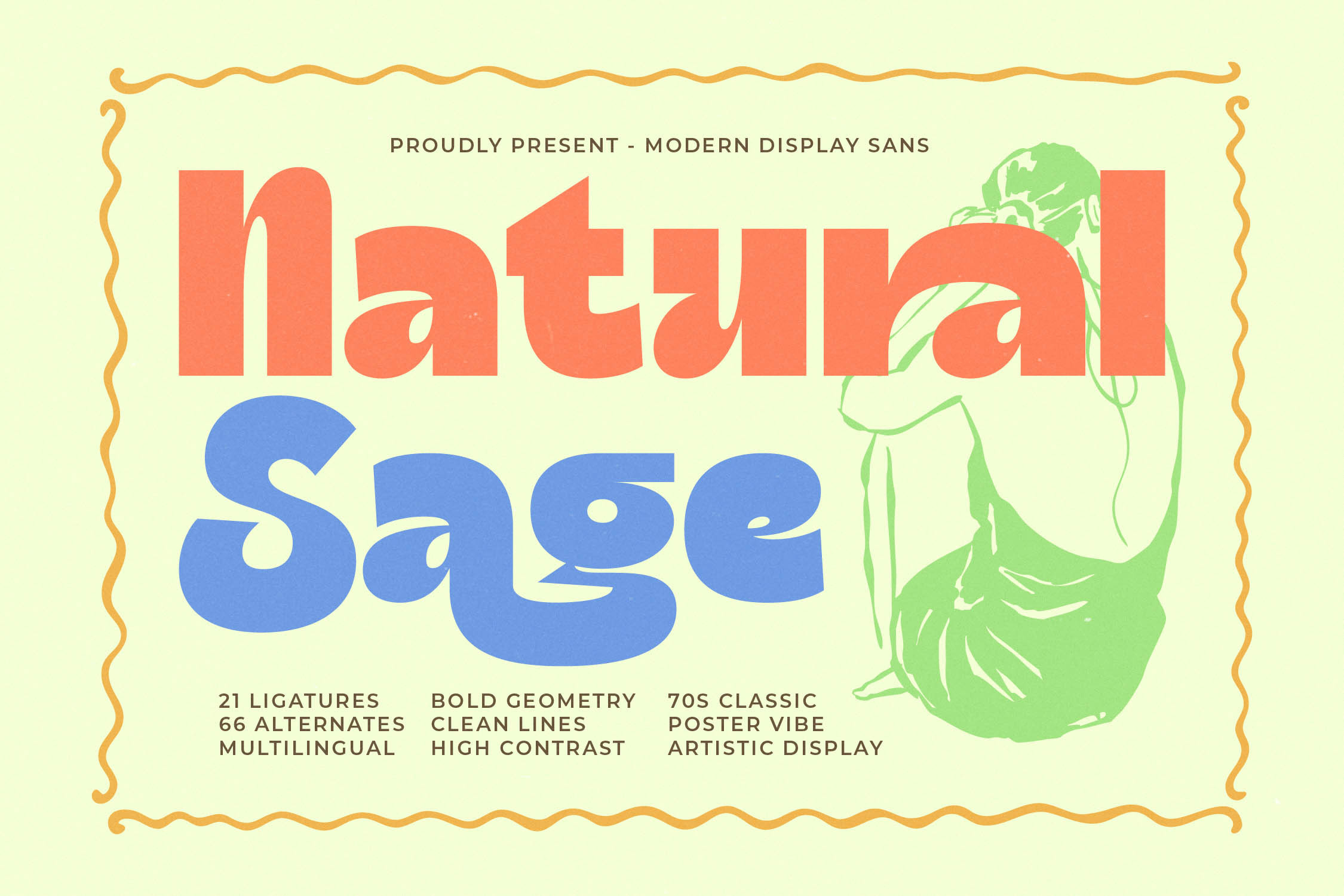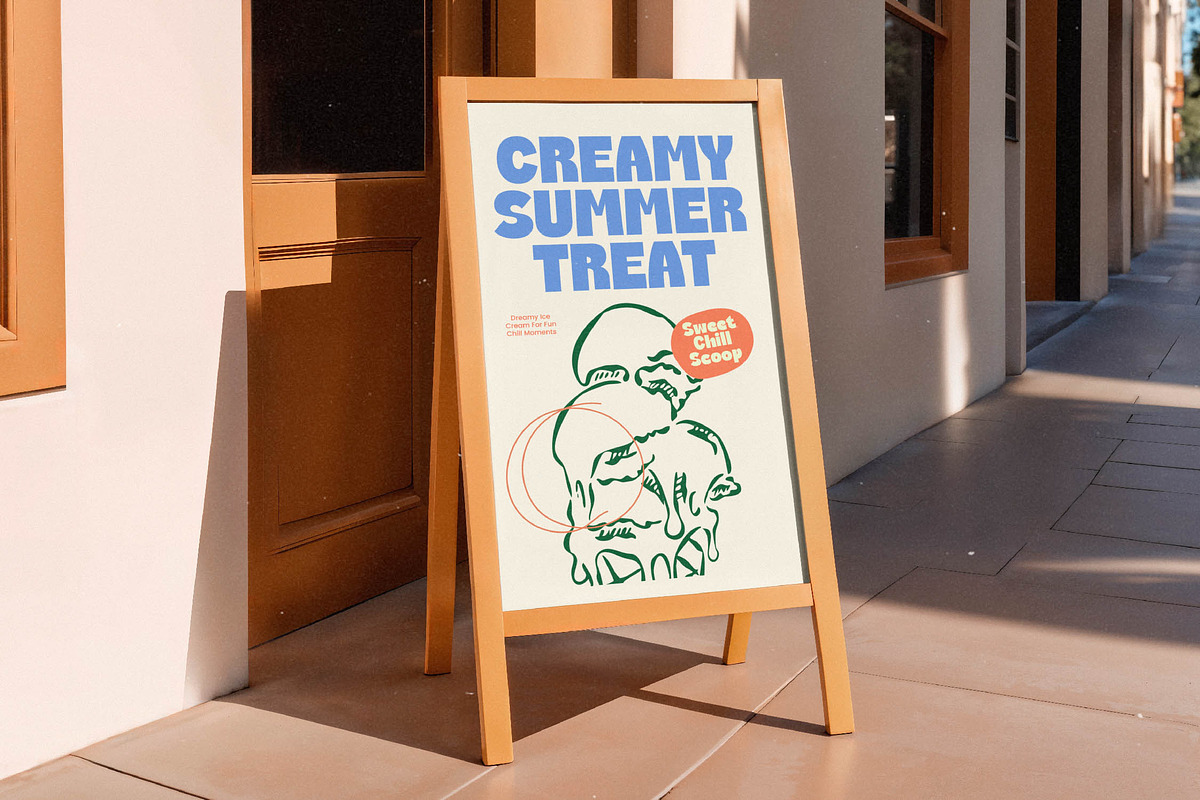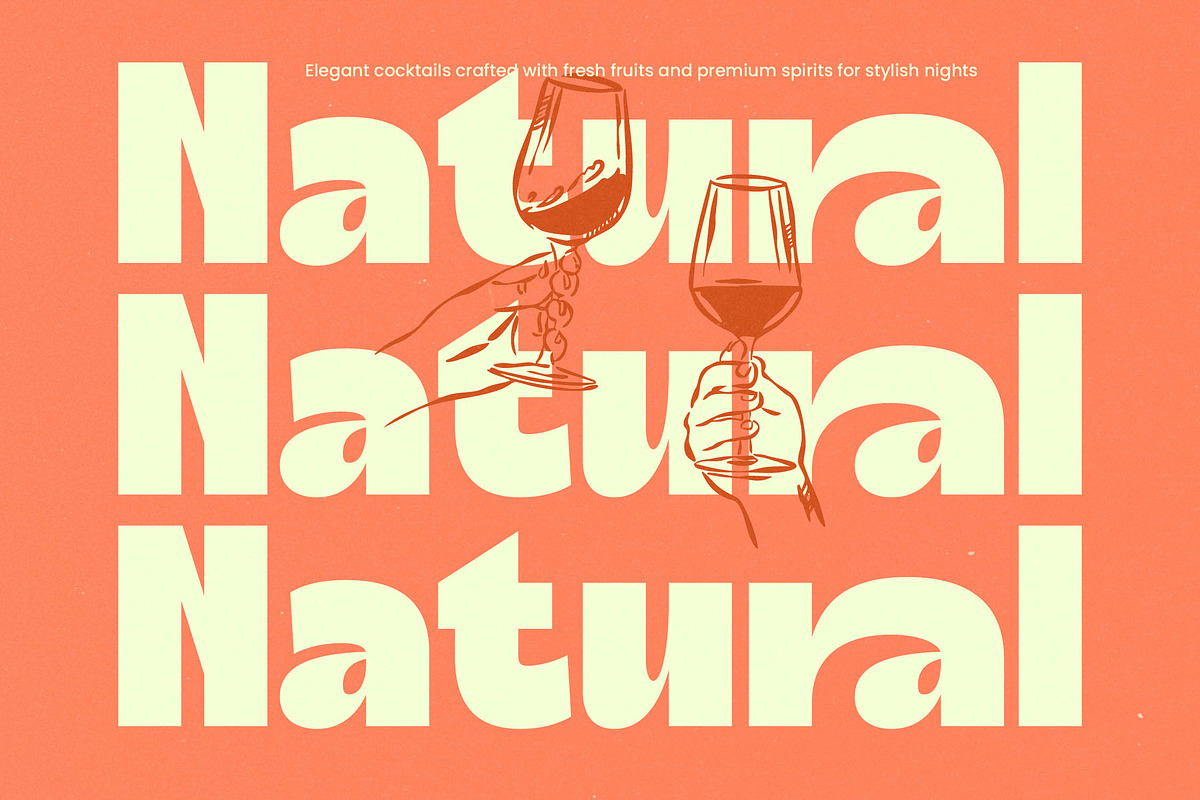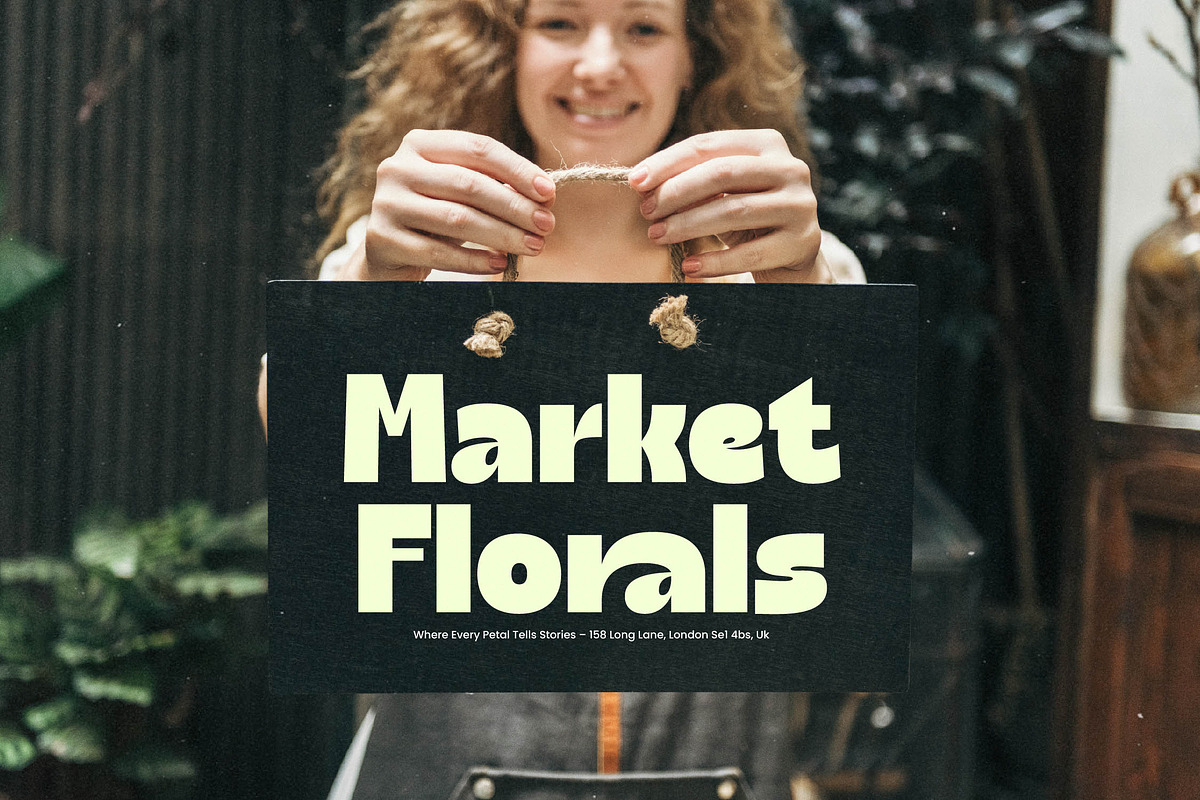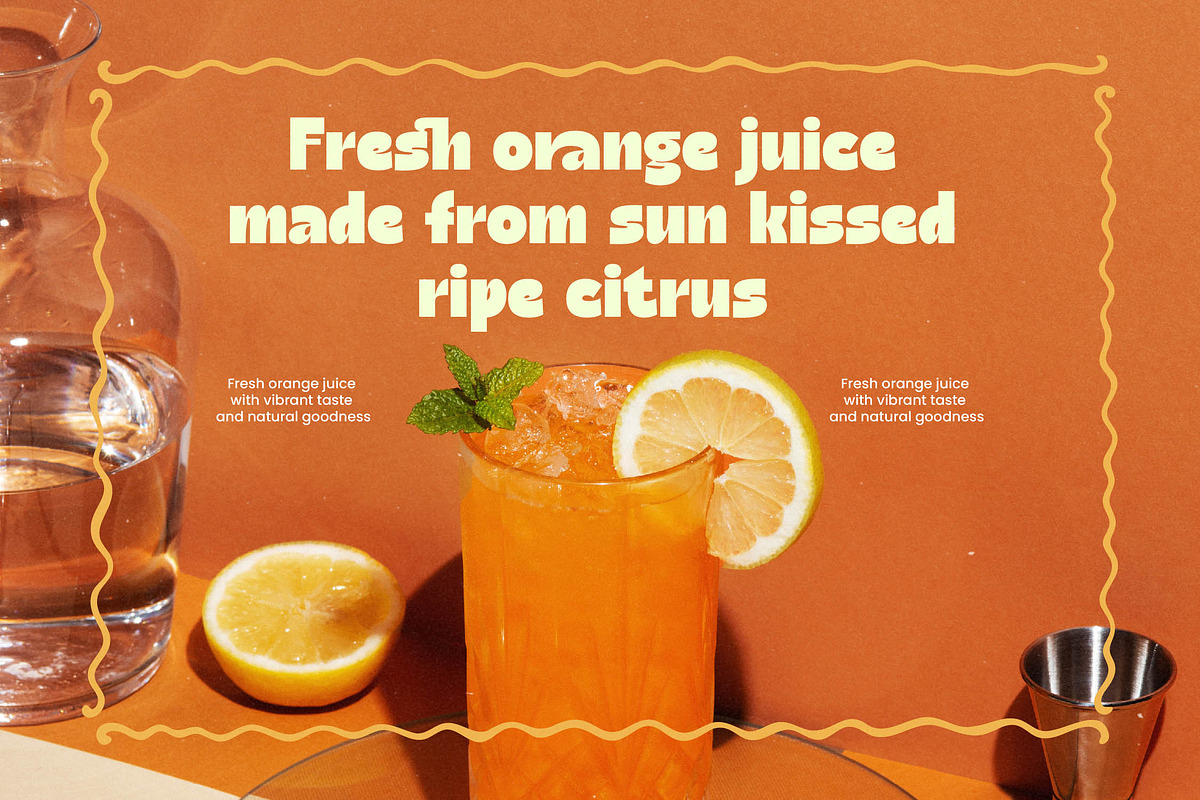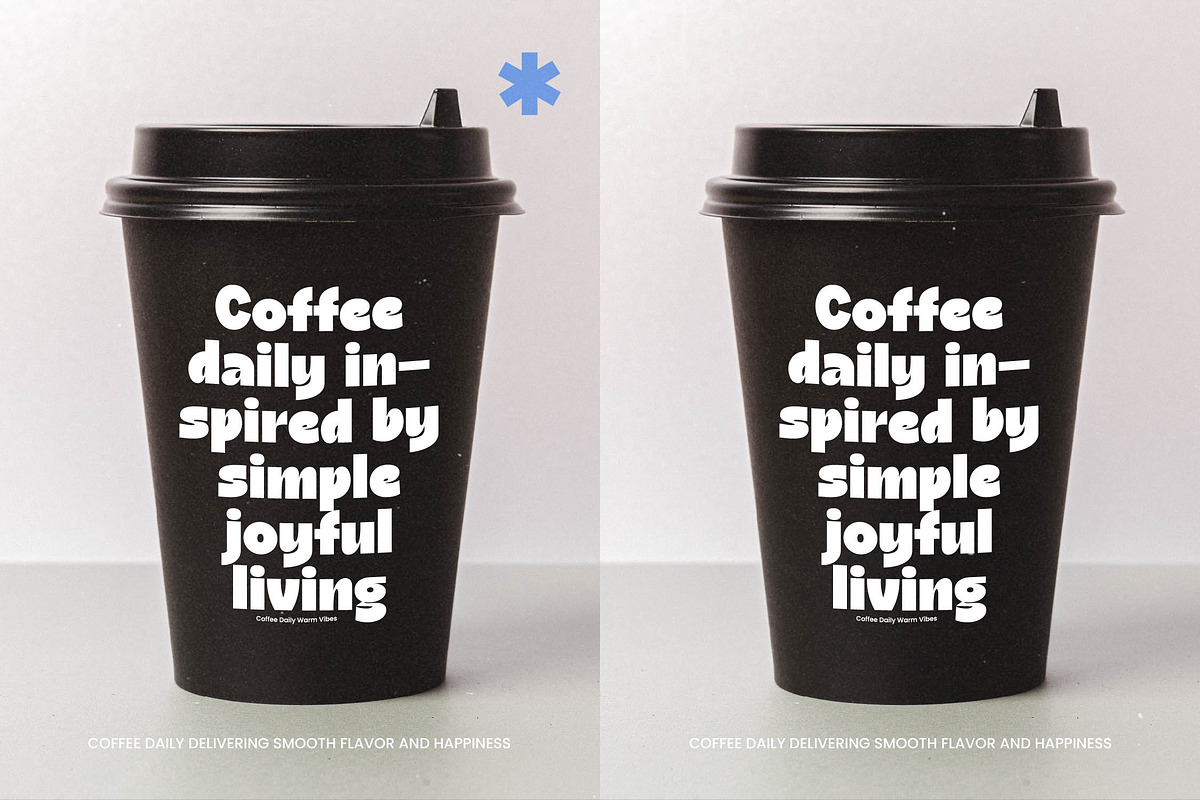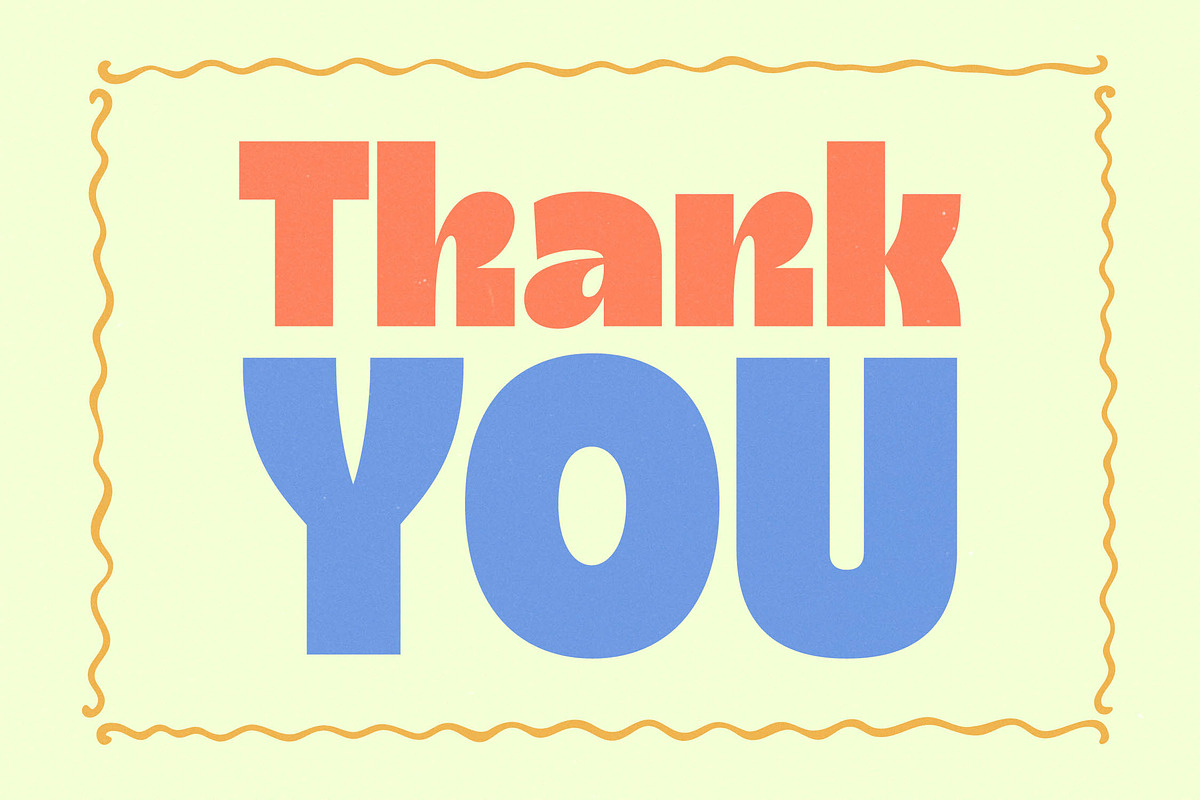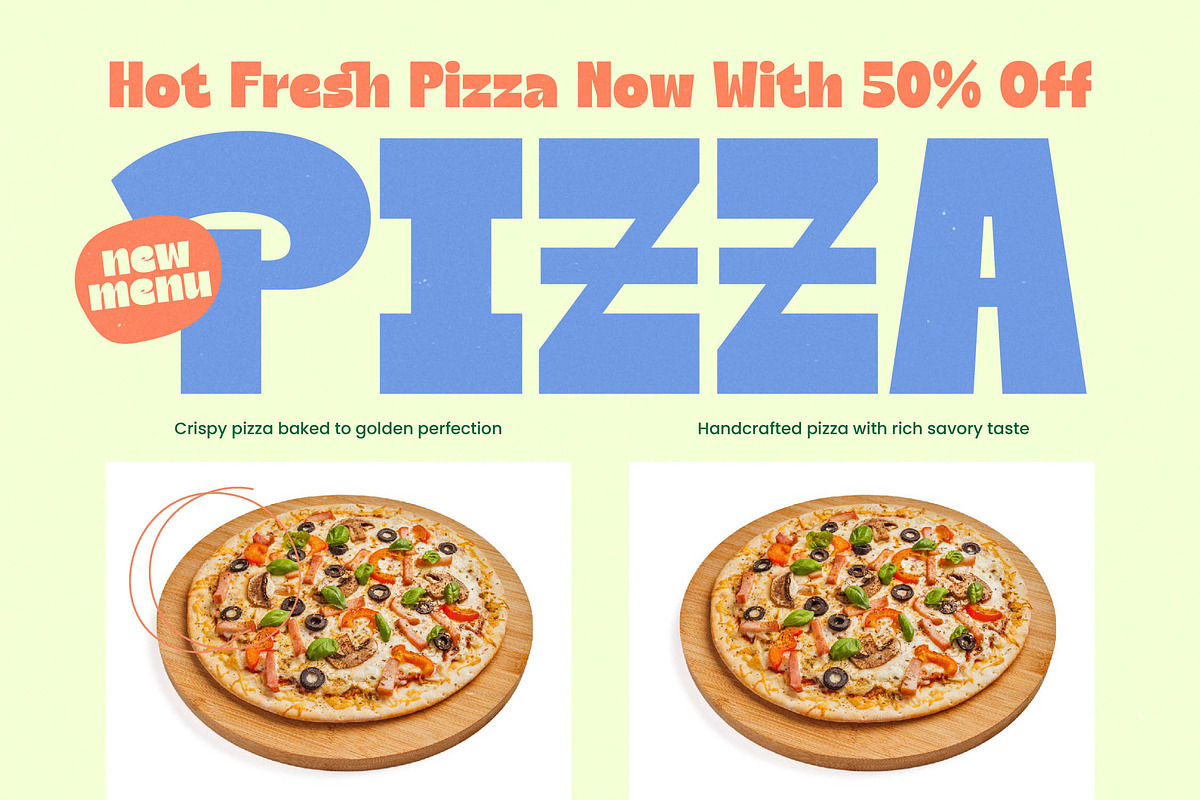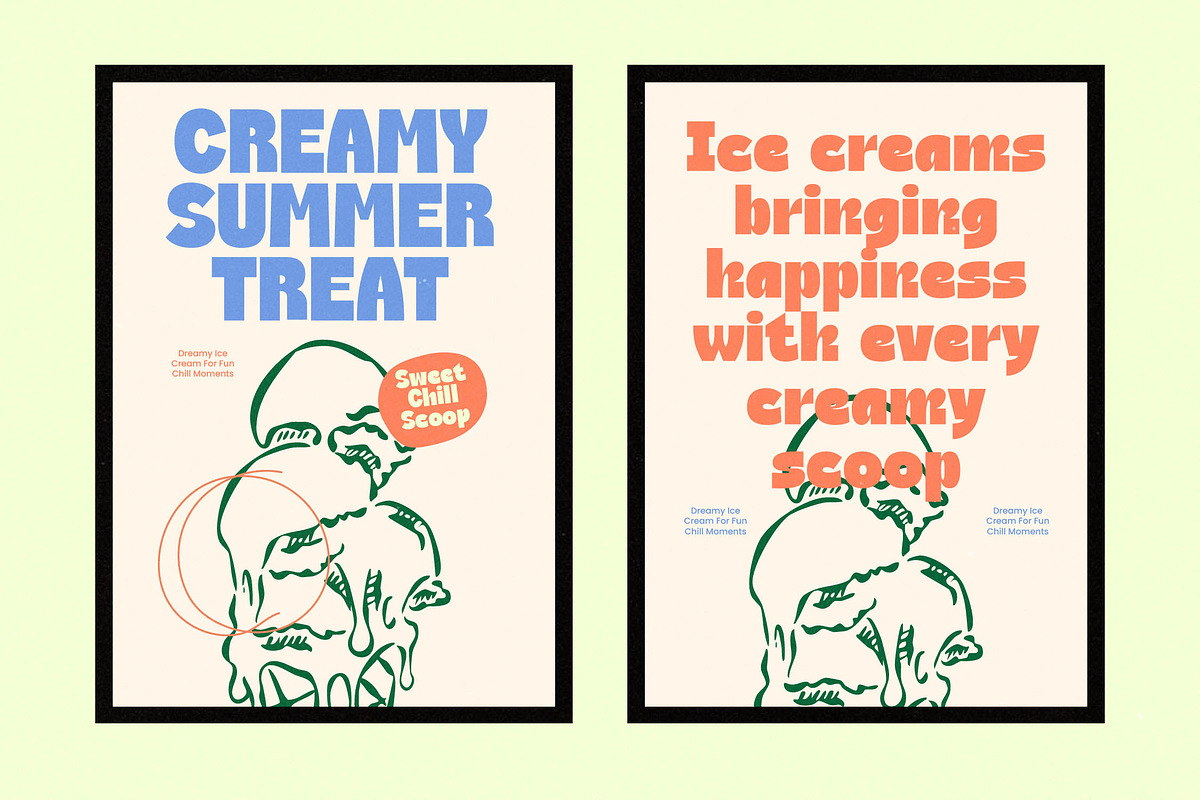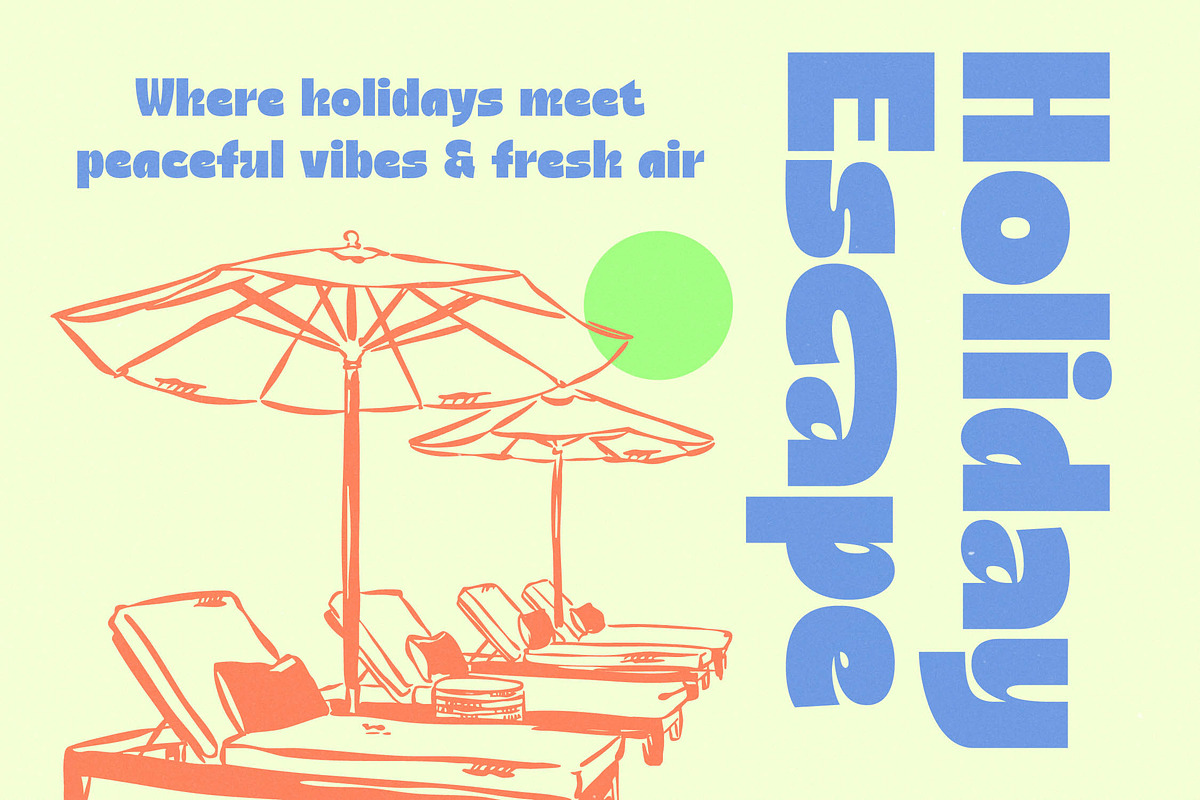
Natural Sage Retro Display Font
Natural Sage is an invitation to embrace the rhythmic elegance of a bygone era, reimagined for the contemporary designer's soul. It strikes a perfect balance between nostalgic warmth and sharp, modern sophistication.
Inspired by the sun-drenched aesthetic of 1970s poster art and the organic flow of nature, this font captures the essence of a peaceful holiday escape. Every curve and angle reflects a commitment to high-contrast geometry that feels both intentional and free-spirited.
With its bold presence and artistic flair, this modern serif display alternative brings a luxury typography feel to every project. It functions as a high-contrast serif for those seeking an editorial font with maximum branding impact.
This typeface aligns perfectly with the current modern serif trend, offering a fresh take on editorial display fonts that stand out in a crowded digital landscape. It caters to the demand for character-driven typography that feels authentic, tactile, and deeply memorable.
Natural Sage is the ultimate choice for high-end logo design and comprehensive branding systems that require a unique voice. From sophisticated editorial layouts and vibrant packaging to romantic wedding stationery and avant-garde fashion campaigns, its versatility is unmatched.
The package includes a rich library of 21 ligatures and 66 alternates that allow for custom typographic flourishes. It also features full multilingual support and a wide range of international characters, ensuring your message resonates globally while utilizing creative swashes for a custom finish.